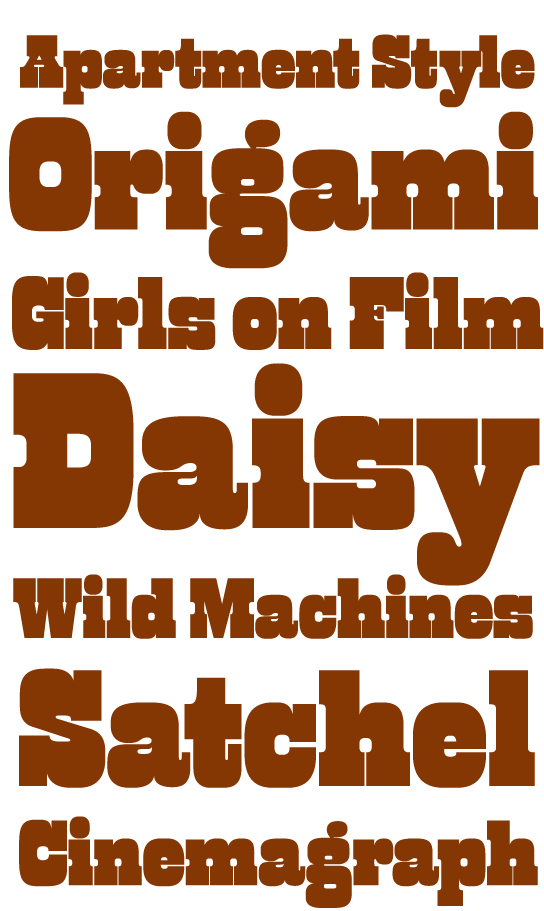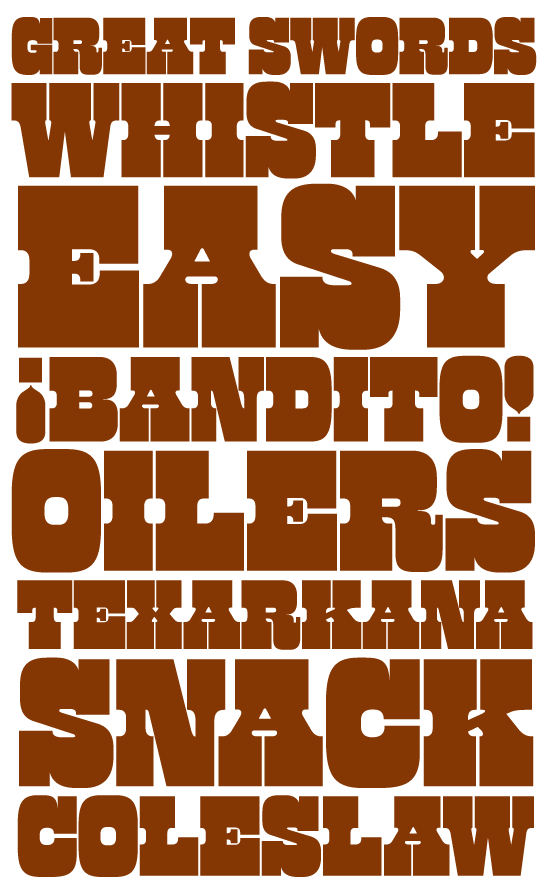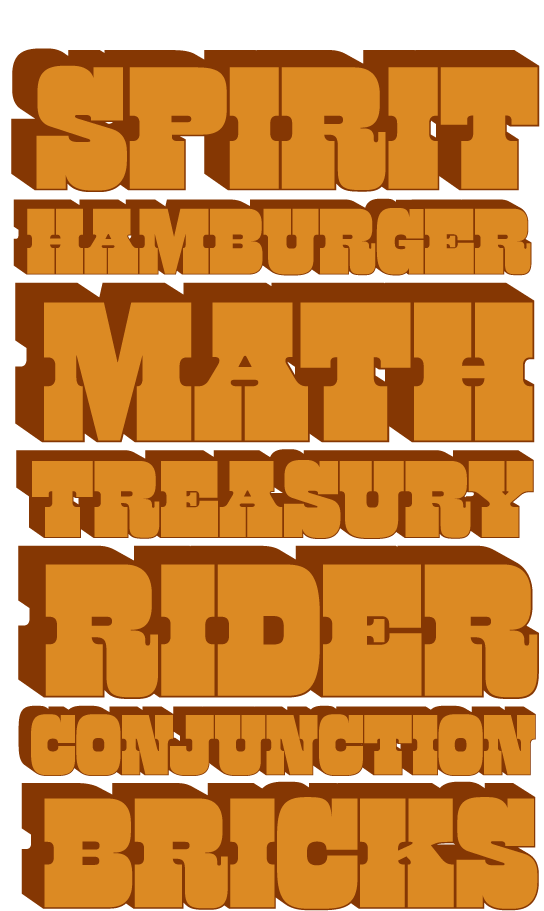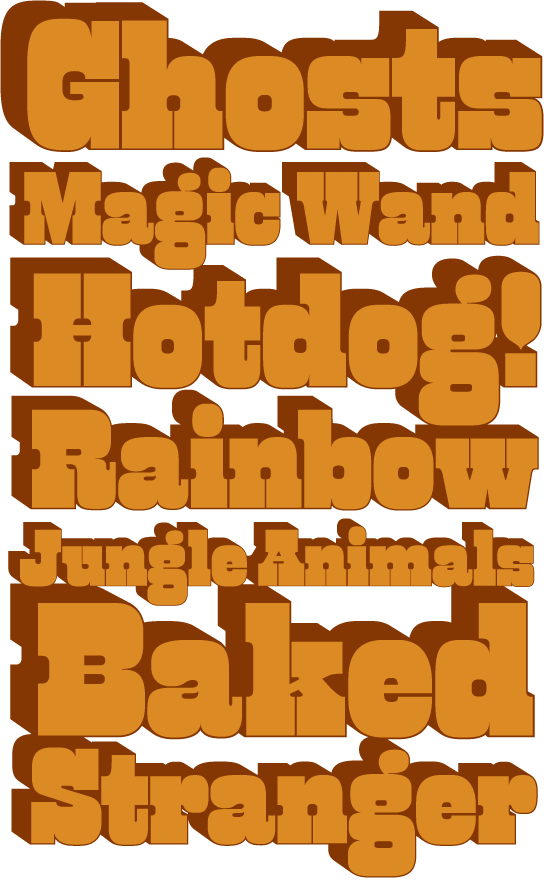
West Barnum Ultra, designed by Dave West and digitized by Ben Kiel & Adam Cruz, was film no. 5494 in the original Photo-Lettering archive. It arrives on Photo-Lettering with and without a shade.